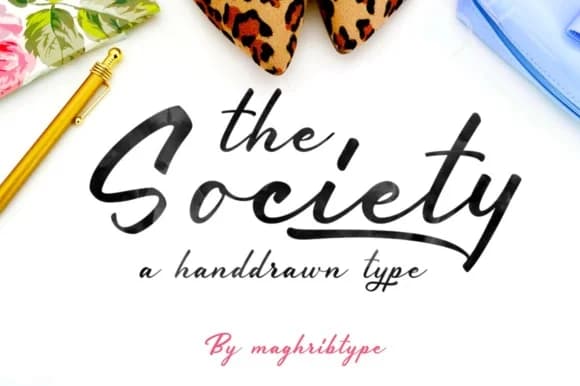
Society by maghrib is a hand-painted script typeface that brings authentic brushwork character to contemporary design projects. With its organic letterforms and flowing strokes, this font excels at adding artisanal appeal to wedding invitation suites and custom stationery sets where a personal, handcrafted touch matters most. The natural aesthetic creates genuine charm that resonates with audiences seeking authentic, human-centered typography rather than sterile digital perfection.
The typeface performs beautifully across boutique branding applications, from artisan skincare packaging and specialty product labels to custom hang tags and product sleeves that strengthen brand identity and customer connection. It's equally effective for DIY craft signage, personalized merchandise designs, and custom event materials that demand visual character and warmth. The flowing letterforms capture the essence of painted, hand-drawn traditions while remaining legible across different applications and sizes. Whether you're designing social media graphics for independent makers, creating custom invitations for milestone events, or developing branded packaging for small-batch products and handmade goods, Society delivers the brushed detail and flowing elegance that distinguishes authentic creative work from mass-produced alternatives. The typeface brings genuine visual storytelling through its organic, personal quality that feels both modern and timeless.
Society Font by maghrib Font is a script font that shines as a display or heading face. Pair it with a clean sans-serif or serif font for body text β the contrast creates a clear hierarchy while the two styles stay balanced and easy to read.
Society Font by maghrib Font